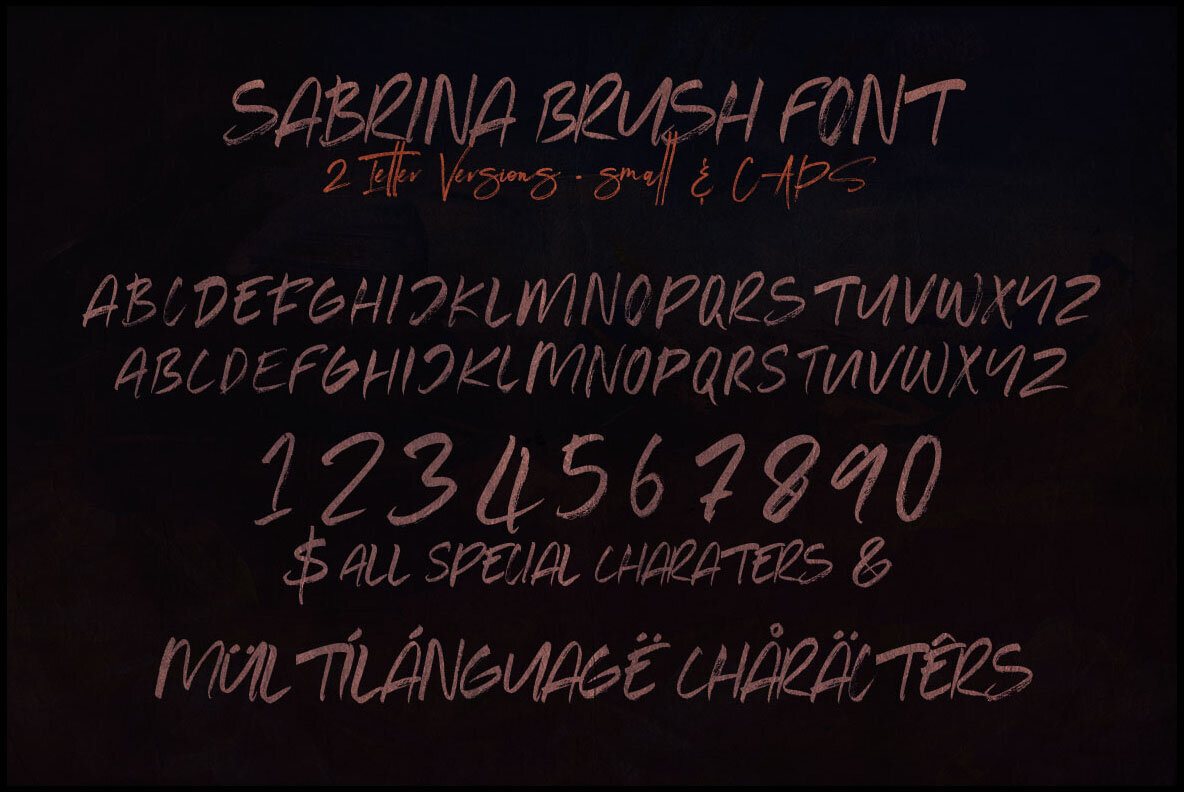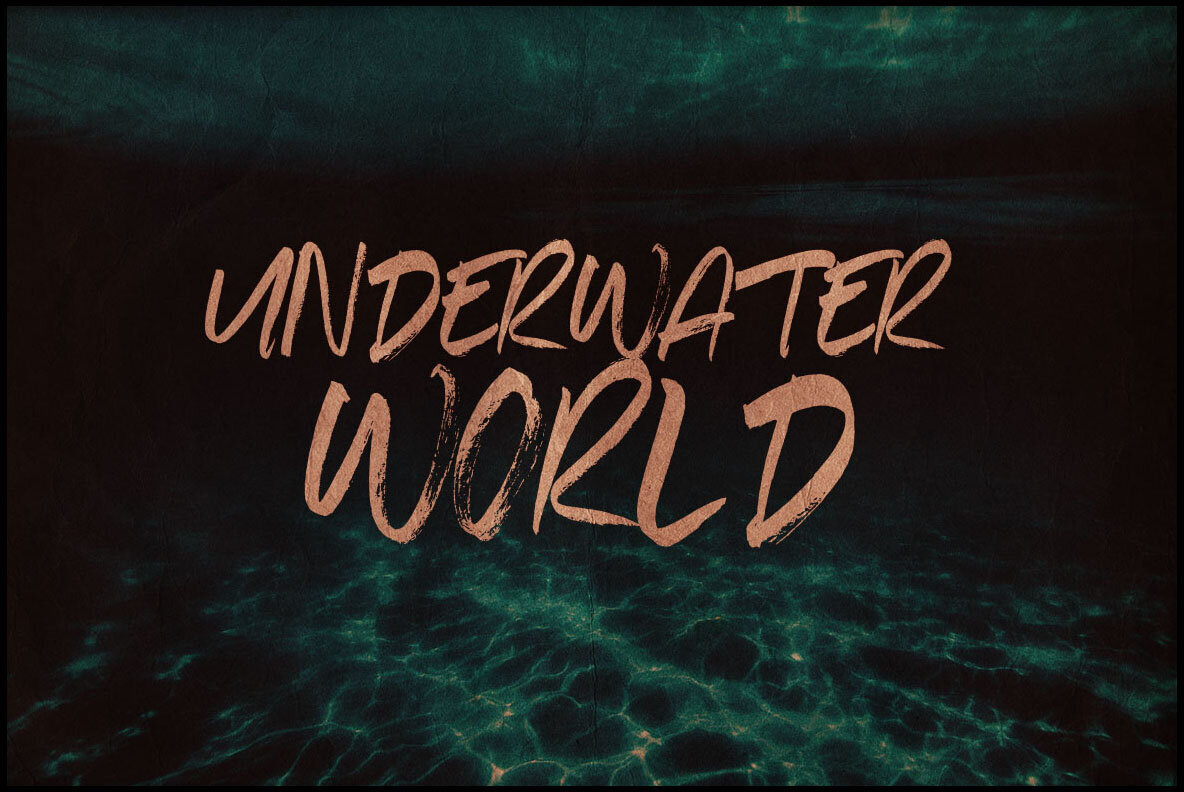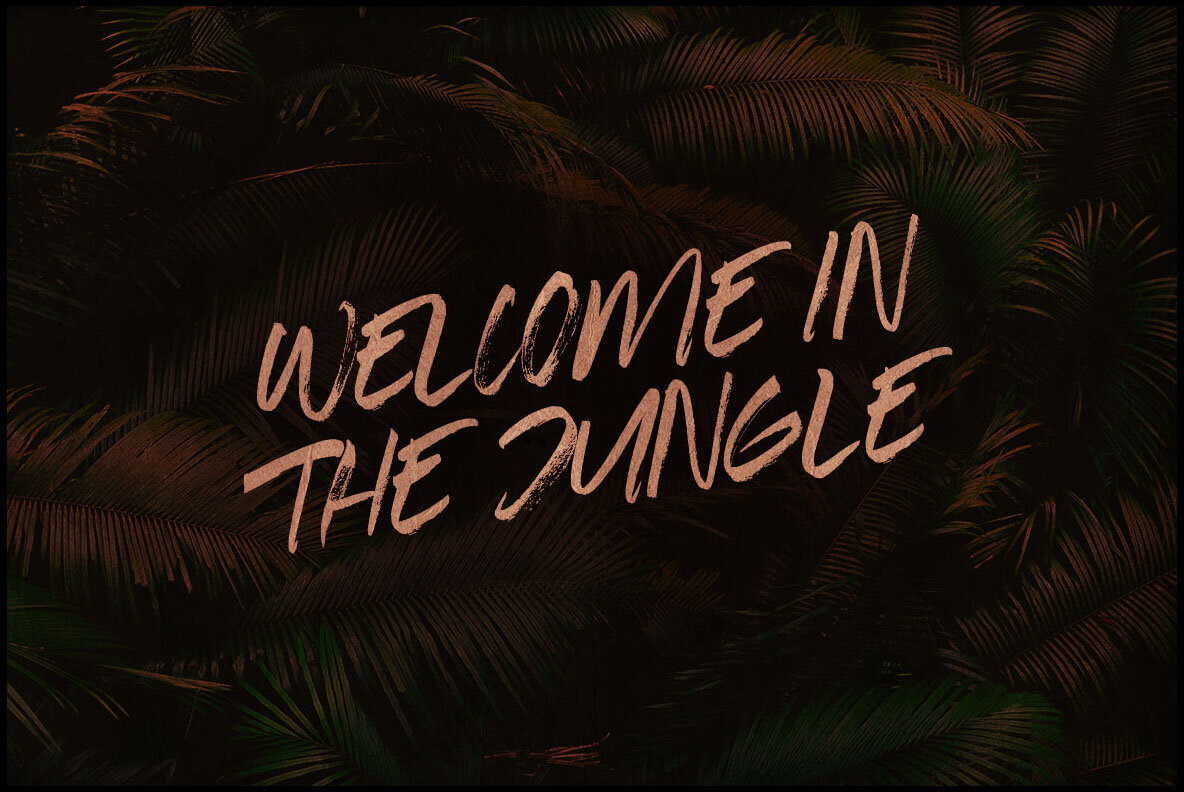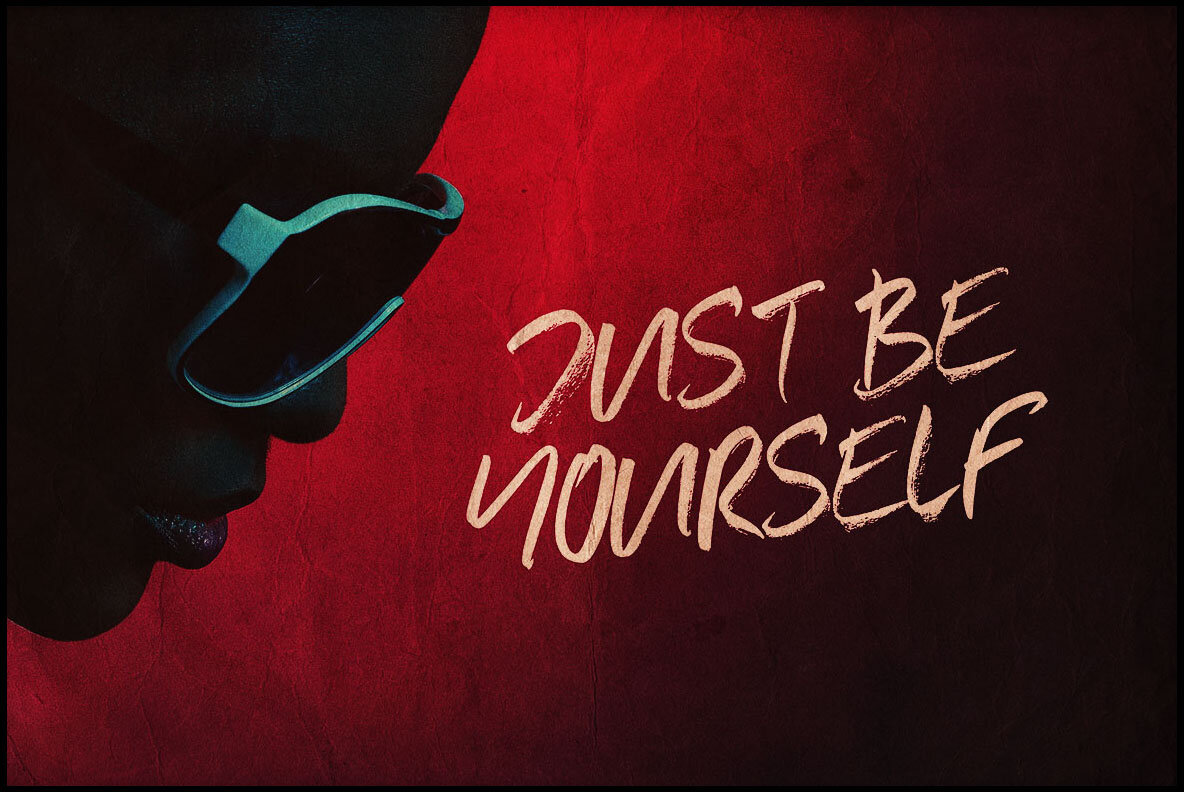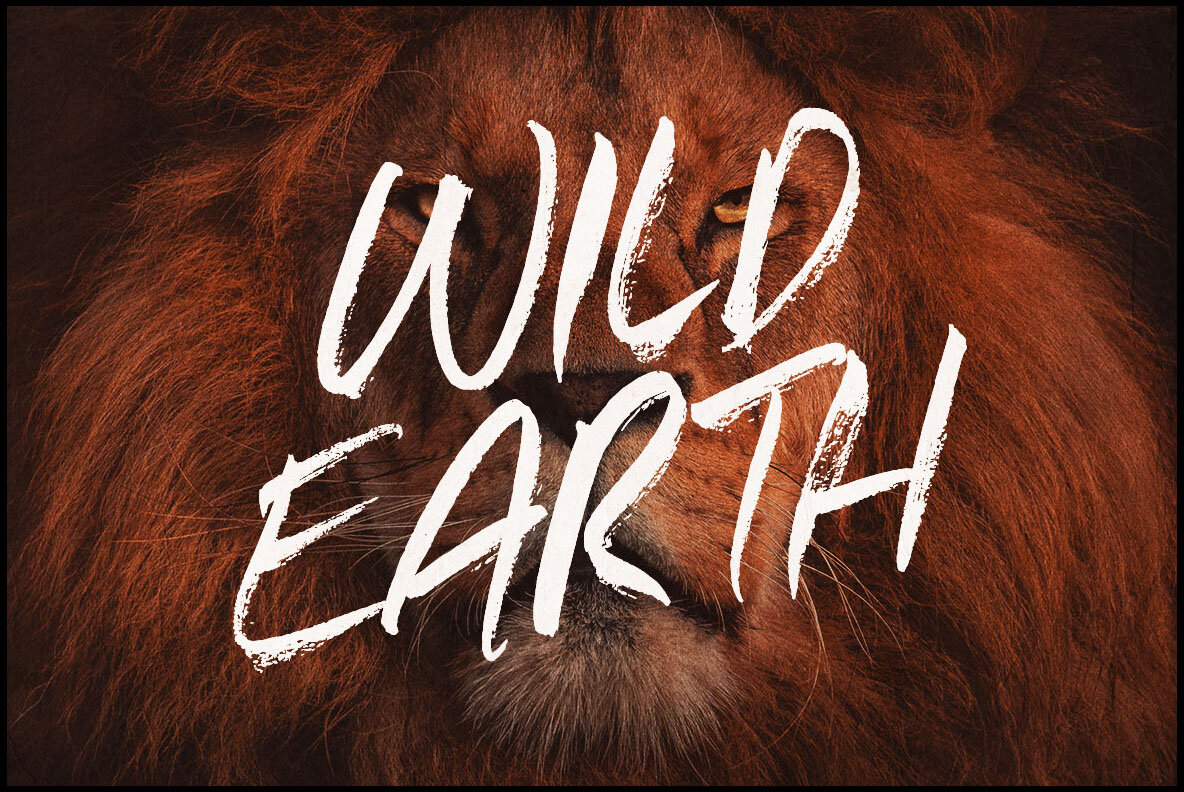
Sabrina Brush Font
Sabrina Regular
Discover the creative possibilities with Sabrina Brush, a handmade sans display font by Peter Olexa. Ideal for projects requiring a grunge, urban, freestyle, or artistic flair, this font brings a unique and bold character to your designs. Should you require any help with this font, please feel free to contact Peter Olexa through his profile page for support and guidance.Sabrina Brush: A Handmade Grunge Style Display Font